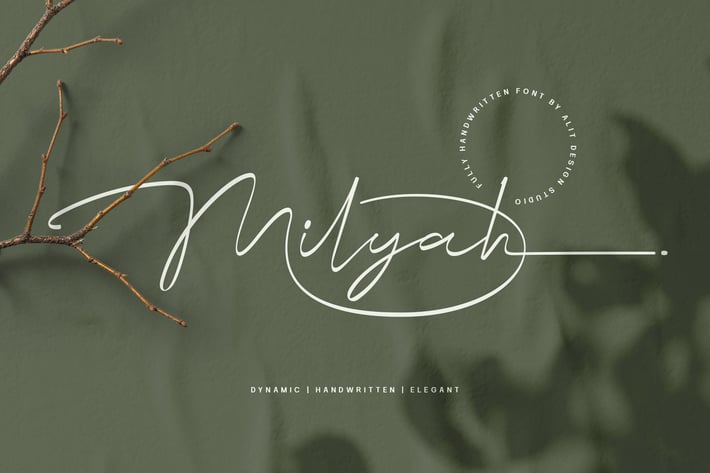
Milyah Signature Script font
Presenting the Milyah Signature Script font by alitdesign.
The Milyah Signature Script font is inspired by spontaneous and dynamic signature strokes with an ink texture that makes the Milyah Signature Script look real. The Milyah Signature Script font looks unique and charming which makes designs using the Milyah Signature Script look more prominent and cool. The Milyah Signature Script font is perfect for a collection of new fonts on your computer, tablet and smartphone for making unique designs or lettering.
The Milyah Signature Script font is perfect for magazine cover designs, brochures, flyers. Instagram ads, Canva Design and so on with unique and modern concepts. besides that this font is very easy to use both in design and non-design programs because everything changes and glyphs are supported by Unicode (PUA).
The Milyah Signature Script contains 827 glyphs with many unique and interesting alternative options.
Language Support :
Latin, Basic, Western European, Central European, South European,Vietnamese.